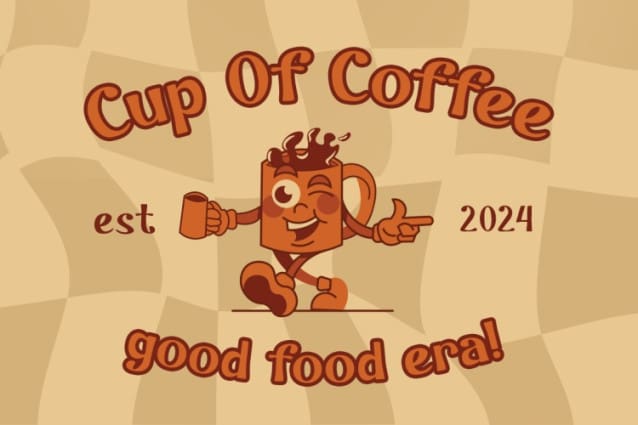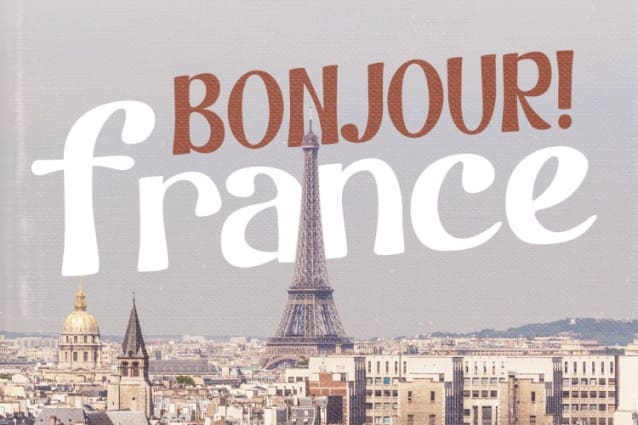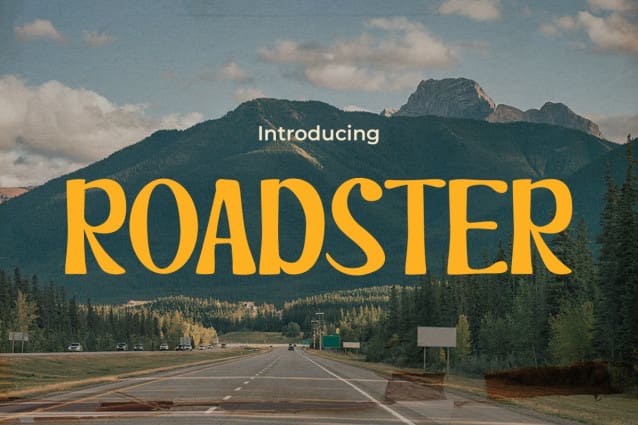
Roadster Vintage Font
Roadster Vintage Font, embark on a journey down the nostalgia lane with a style that transcends time. This font embraces classic vintage and retro vibes, delivering a captivating and enticing touch in every letter. Designed with finesse and attention to detail, each character transports you back to an era filled with charm and elegance. With “Roadster Vintage,” you can create designs that are not only timeless but also exude the inspiring aura of glamour from the past.